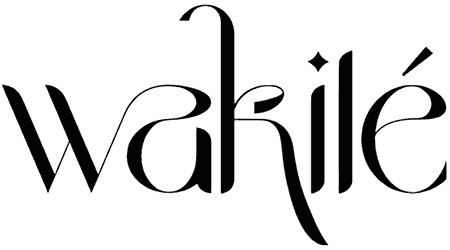
Wakile Font
Create a classic and lively design, just like this serif font, which never leaves the competition for the best style. Wakile, with a full cover of characters in two variants, can be an excellent choice for formal or informal projects. Set the Wakile font on your coming designs, such as posters, business cards, movies, or whatnot, and be professional.